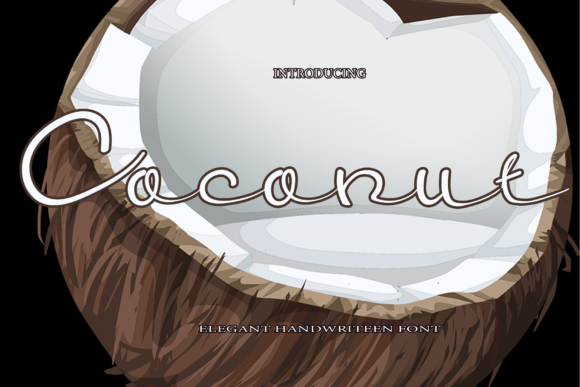
The Perfect Script for Your Next Project
Have you ever found yourself stuck in the midst of a creative project, desperately searching for the perfect font to bring your vision to life? We’ve all been there – pouring over countless options, hoping to stumble upon that elusive match that elevates our design to the next level. It’s in these moments of frustration that we discover hidden gems, and for designers, one such gem is the Coconut Font.
This chic, refined script font exudes sophistication and elegance, making it the perfect choice for any project that demands a touch of refinement. With its stylish alternates and ligatures, the Coconut Font is the ultimate go-to for designers seeking to add a layer of sophistication to their work. Whether you’re working on a high-end branding project or a luxury product label, the Coconut Font is sure to deliver.
Key Features of Coconut Font
- Character Set: The font includes a wide range of characters, including Latin, Greek, and Cyrillic alphabets, as well as punctuation and symbol sets.
- Unique Characteristics: Coconut Font features a unique, hand-drawn design with a tropical flair, making it perfect for beach-themed, summer-inspired, or island-inspired projects.
- Font Styles: The font comes in 3 different styles: Regular, Italic, and Bold, providing flexibility for designers to create a range of visual effects.
- Language Support: Coconut Font supports over 100 languages, making it a versatile choice for designers working on multilingual projects.
Designer Review: Coconut Font
Overall, I think Coconut Font is a unique and interesting font choice. ✨ The rounded edges and tropical vibes give it a fun, playful feel that’s perfect for branding or packaging design.
- ✨ The font is highly legible, even at small sizes.
- ✨ It’s available in a range of weights and styles, making it easy to customize for different designs.
- ✨ The font is highly customizable, with a range of OpenType features and glyph variations.
However, there are some limitations:
- ⚠️ The font may not be suitable for more formal or professional designs, as it has a somewhat whimsical feel.
- ⚠️ The font may not be as effective in large blocks of text, as it can start to feel overwhelming or cluttered.
- ⚠️ The font is not as versatile as some other fonts, and may not work well in certain design contexts.
Overall, I think Coconut Font is a great choice for designers who want to add a bit of personality and whimsy to their designs. However, it may not be the best choice for every project.
Tips for Getting the Most Out of Coconut Font
Use Coconut Font for tropical-themed designs, such as beach or island-inspired graphics. It pairs well with bright colors and fun illustrations. Experiment with different font sizes and styles to create a unique look.
Coconut Font is ideal for use in logos, social media graphics, and marketing materials. It’s also a great choice for wedding invitations, party decorations, and other celebratory designs.